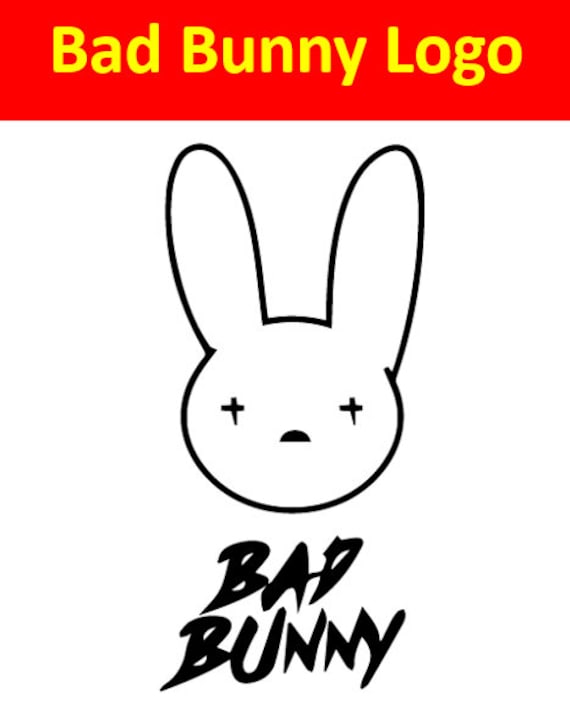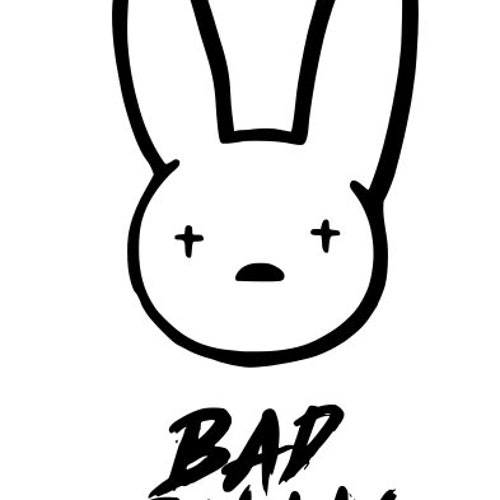
What Font Is Bad Bunny Logo . The logo doesn’t usually have any colors besides the usual white and black. The font was designed in 2014 for fortunes. The font for the bad bunny logo is just as engaging as the icon. Witty, unique, sleek, and classic are few words that describe the visual envoy of bad bunny. The logo comprises the head of a rabbit and a bold wordmark. Bad bunny’s logo directly echoes the rap singer’s creative. The name of the font used for the bad bunny logo is a typeface called againts. The name of the rapper is in all capital letters, a testament to his bold and engaging attitude. The font is the usual style used by rappers and similar modern artists for their personal brands. The modern and bold bad bunny logo is composed of graphical and text parts, which are more often used separately. He is a senior designer and typographer at the well regarded fortunes co font foundry. It was created by a font author by the name of ramandhani nugraha, from bandung (indonesia). The abstract head has long ears, a. The bad bunny logo is designed in a font known as the againts font. Againts is the work of font creator ramandhani nugraha.
The bad bunny logo is designed in a font known as the againts font. The name of the font used for the bad bunny logo is a typeface called againts. The font was designed in 2014 for fortunes. The modern and bold bad bunny logo is composed of graphical and text parts, which are more often used separately. The font is the usual style used by rappers and similar modern artists for their personal brands. It was created by a font author by the name of ramandhani nugraha, from bandung (indonesia). The name of the rapper is in all capital letters, a testament to his bold and engaging attitude. The logo doesn’t usually have any colors besides the usual white and black. Againts is the work of font creator ramandhani nugraha. The font for the bad bunny logo is just as engaging as the icon.
What Font Is Bad Bunny Logo The abstract head has long ears, a. The font is the usual style used by rappers and similar modern artists for their personal brands. The name of the font used for the bad bunny logo is a typeface called againts. The logo doesn’t usually have any colors besides the usual white and black. It was created by a font author by the name of ramandhani nugraha, from bandung (indonesia). Againts is the work of font creator ramandhani nugraha. The abstract head has long ears, a. The modern and bold bad bunny logo is composed of graphical and text parts, which are more often used separately. Bad bunny’s logo directly echoes the rap singer’s creative. He is a senior designer and typographer at the well regarded fortunes co font foundry. Witty, unique, sleek, and classic are few words that describe the visual envoy of bad bunny. The font was designed in 2014 for fortunes. The bad bunny logo is designed in a font known as the againts font. The font for the bad bunny logo is just as engaging as the icon. The name of the rapper is in all capital letters, a testament to his bold and engaging attitude. The logo comprises the head of a rabbit and a bold wordmark.
Bad Bunny Font SVG Etsy What Font Is Bad Bunny Logo Witty, unique, sleek, and classic are few words that describe the visual envoy of bad bunny. It was created by a font author by the name of ramandhani nugraha, from bandung (indonesia). Againts is the work of font creator ramandhani nugraha. The font for the bad bunny logo is just as engaging as the icon. The logo comprises the head. What Font Is Bad Bunny Logo.
Bad Bunny Logo, symbol, meaning, history, PNG, brand What Font Is Bad Bunny Logo The modern and bold bad bunny logo is composed of graphical and text parts, which are more often used separately. It was created by a font author by the name of ramandhani nugraha, from bandung (indonesia). The abstract head has long ears, a. The bad bunny logo is designed in a font known as the againts font. The name of. What Font Is Bad Bunny Logo.
Bad Bunny Font Free Download What Font Is Bad Bunny Logo The font is the usual style used by rappers and similar modern artists for their personal brands. The font for the bad bunny logo is just as engaging as the icon. He is a senior designer and typographer at the well regarded fortunes co font foundry. The logo comprises the head of a rabbit and a bold wordmark. The abstract. What Font Is Bad Bunny Logo.
Bad Bunny Logo Exploring The Bad Bunny Symbol, Fonts And Colors What Font Is Bad Bunny Logo The logo doesn’t usually have any colors besides the usual white and black. The font for the bad bunny logo is just as engaging as the icon. The abstract head has long ears, a. The name of the font used for the bad bunny logo is a typeface called againts. The modern and bold bad bunny logo is composed of. What Font Is Bad Bunny Logo.
Bad Bunny Letters Font Rabbit Logo Template Logo Templates Creative What Font Is Bad Bunny Logo The name of the font used for the bad bunny logo is a typeface called againts. Witty, unique, sleek, and classic are few words that describe the visual envoy of bad bunny. The font was designed in 2014 for fortunes. The logo comprises the head of a rabbit and a bold wordmark. Againts is the work of font creator ramandhani. What Font Is Bad Bunny Logo.
Bad Bunny Logo Font Bad Bunny Logo Cut File buticams What Font Is Bad Bunny Logo The font was designed in 2014 for fortunes. The bad bunny logo is designed in a font known as the againts font. The name of the rapper is in all capital letters, a testament to his bold and engaging attitude. Againts is the work of font creator ramandhani nugraha. The font is the usual style used by rappers and similar. What Font Is Bad Bunny Logo.
Bad Bunny Font Free Download FontSwan What Font Is Bad Bunny Logo The logo comprises the head of a rabbit and a bold wordmark. The modern and bold bad bunny logo is composed of graphical and text parts, which are more often used separately. The font was designed in 2014 for fortunes. The font for the bad bunny logo is just as engaging as the icon. It was created by a font. What Font Is Bad Bunny Logo.
Bad bunny font alphabet un verano sin ti font svg png cricut Artofit What Font Is Bad Bunny Logo It was created by a font author by the name of ramandhani nugraha, from bandung (indonesia). The abstract head has long ears, a. The font for the bad bunny logo is just as engaging as the icon. Bad bunny’s logo directly echoes the rap singer’s creative. The logo comprises the head of a rabbit and a bold wordmark. Witty, unique,. What Font Is Bad Bunny Logo.
Bad Bunny Alphabet SVG, Bad Bunny Letters PNG, Bad Bunny Cri Inspire What Font Is Bad Bunny Logo The bad bunny logo is designed in a font known as the againts font. The font for the bad bunny logo is just as engaging as the icon. The font is the usual style used by rappers and similar modern artists for their personal brands. He is a senior designer and typographer at the well regarded fortunes co font foundry.. What Font Is Bad Bunny Logo.